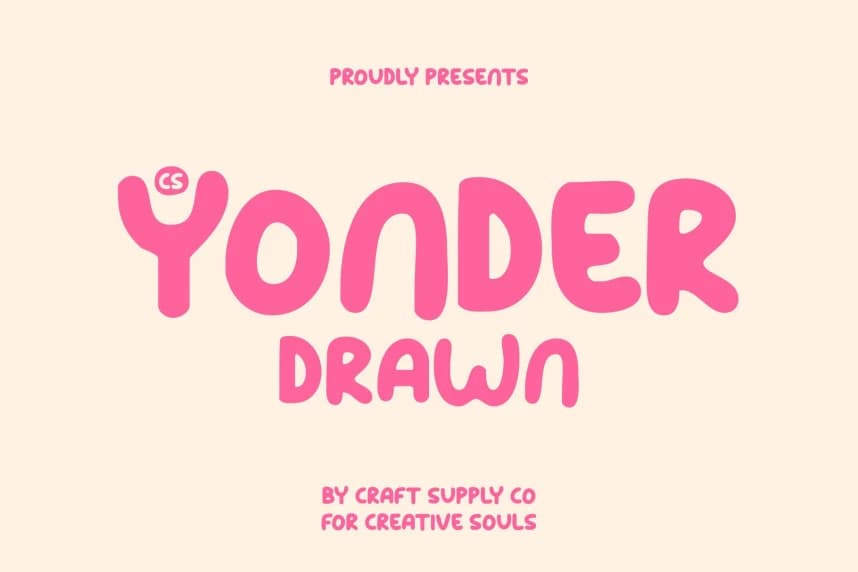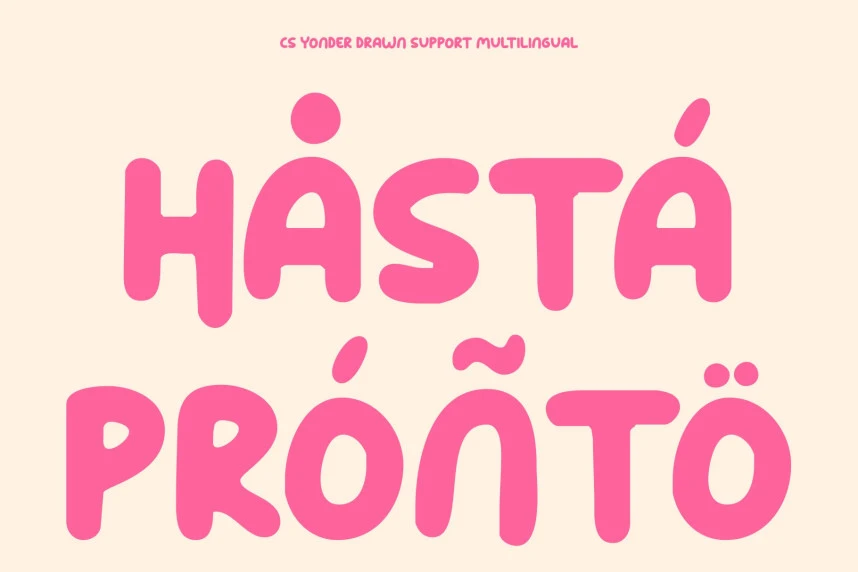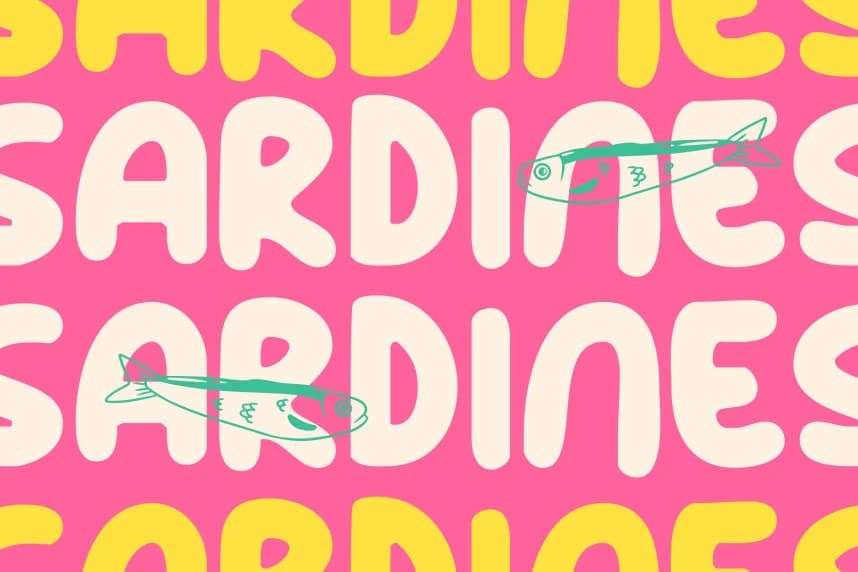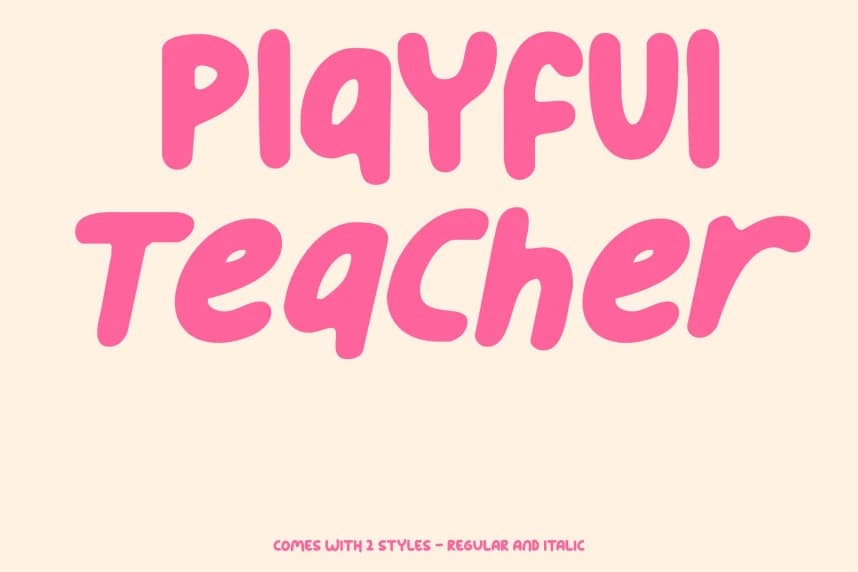
CS Yonder Drawn Font
CS Yonder Drawn Font – Playful Charm for Bright Imaginations Friendly Handwritten Style for Kids. This is a delightful kids’ font with a handwritten touch that captures the joy and spontaneity of childhood.